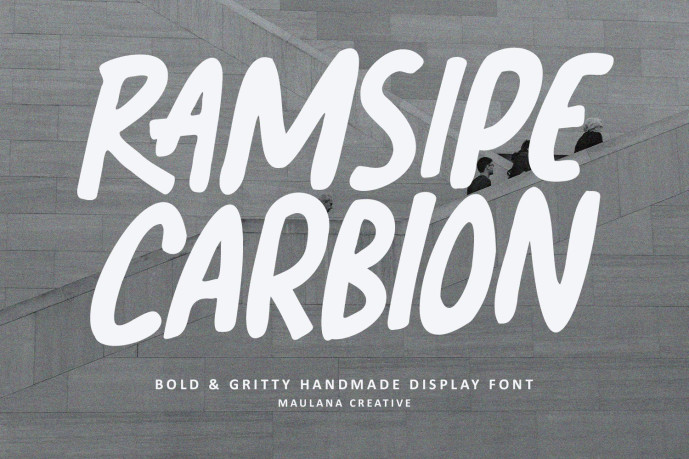
Ramsipe Carbion Font
Ramsipe Carbion Font is a high impact, handmade display font designed to bring raw energy and authentic character to your creative projects. Crafted by Maulana Creative, this typeface features thick, expressive brushstrokes and a natural “marker” feel that bridges the gap between urban street art and contemporary graphic design.
Its bold weight and slightly irregular edges give it a powerful, human touch that stands out against clean digital layouts. Whether you are designing edgy eye-catching social media, or high-energy sports branding, Ramsipe Carbion delivers a loud and unmistakable message.